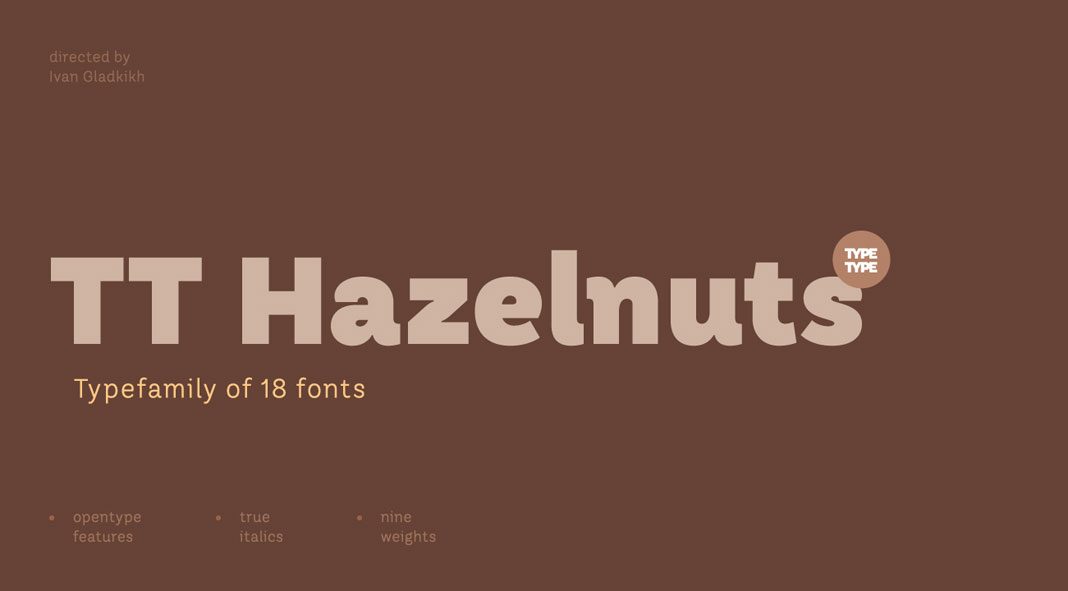
TT Hazelnuts, a curvy sans serif font family from foundry TypeType.
Designed by Ivan Gladkikh and the TypeType team, TT Hazelnuts is a universal display font family for multi purpose. Equipped with 9 weights plus true Italics as well as decorative elements and plenty of OpenType features, you can use it for both headlines and small text areas. Its curvy look and feel fits perfectly to modern typographic projects such as fashion, advertising, brand and editorial design. Feel free to find further information about all features below or click on the following link.
TT Hazelnuts’ typographic features.
With its extensive character set of more than 488 glyphs per font, this unique sans serif type family supports over 80 languages including Turkish, Hungarian, Czech, Belarusian, English, German, Polish, Ukranian, French, Dutch, Croatian, Finnish, Swedish, Spanish, Russian, among others. The diverse weights range from a delicate “thin” to a massive “heavy” font plus true Italics for each weight. The set of OpenType features includes ordinals, superscript, subscript, fractions, denominators, numerators, case sensitive punctuation, tabular figures, oldstyle figures, etc. Its geometric yet handmade touch results in a warm and friendly visual experience. Please note, the complete family is currently available (only for a limited time) as introductory offer on Fontspring – just click on the following link.